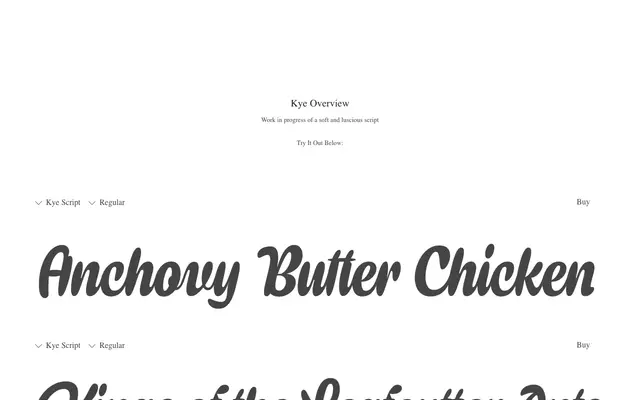
A soft, flowing connected script from PS Type Lab, currently in development, with OpenType swash and stylistic alternates.
A work-in-progress script described as soft and luscious, featuring a single Regular weight with OpenType features including swash alternates, a stylistic set and discretionary ligatures. The combination of these features suggests a design aimed at expressive display use, with the alternates providing flexibility in texture and rhythm. Its current state indicates an active development phase rather than a finished release.
Kye is explicitly described as a script typeface, with a soft and luscious character suggesting a flowing, connected style typical of calligraphic scripts.